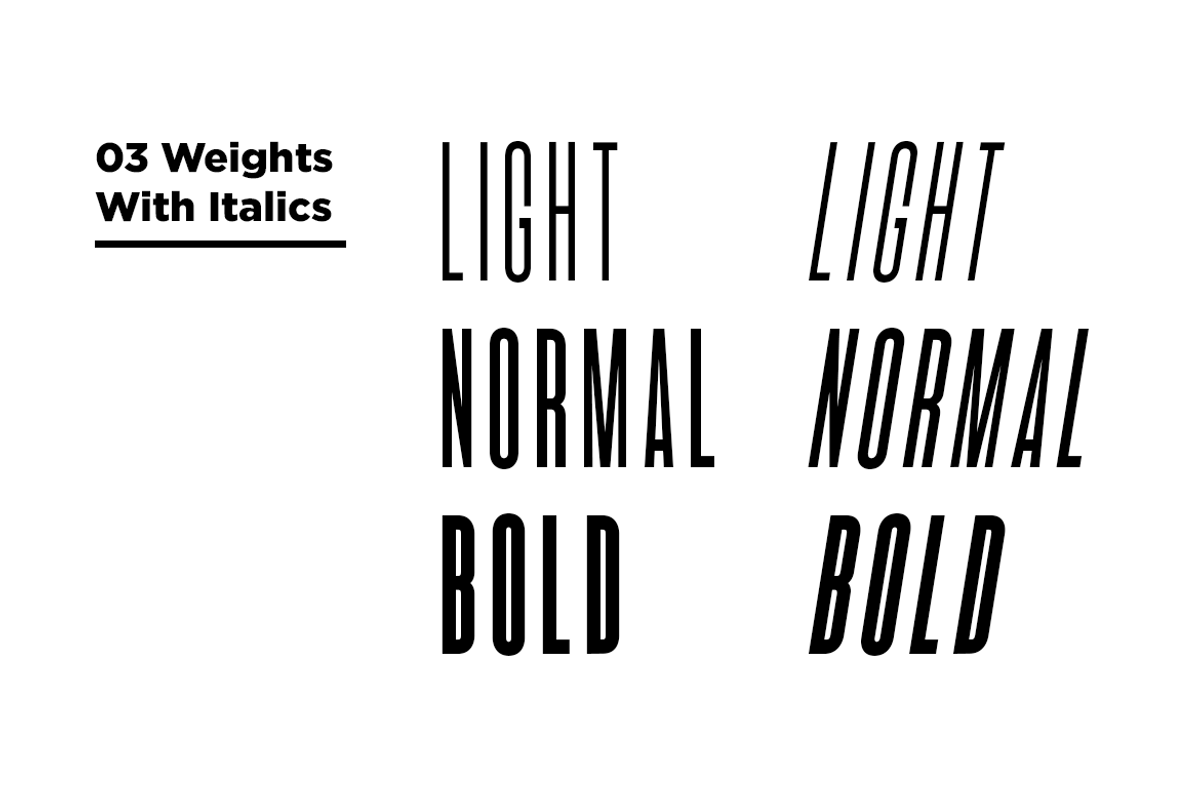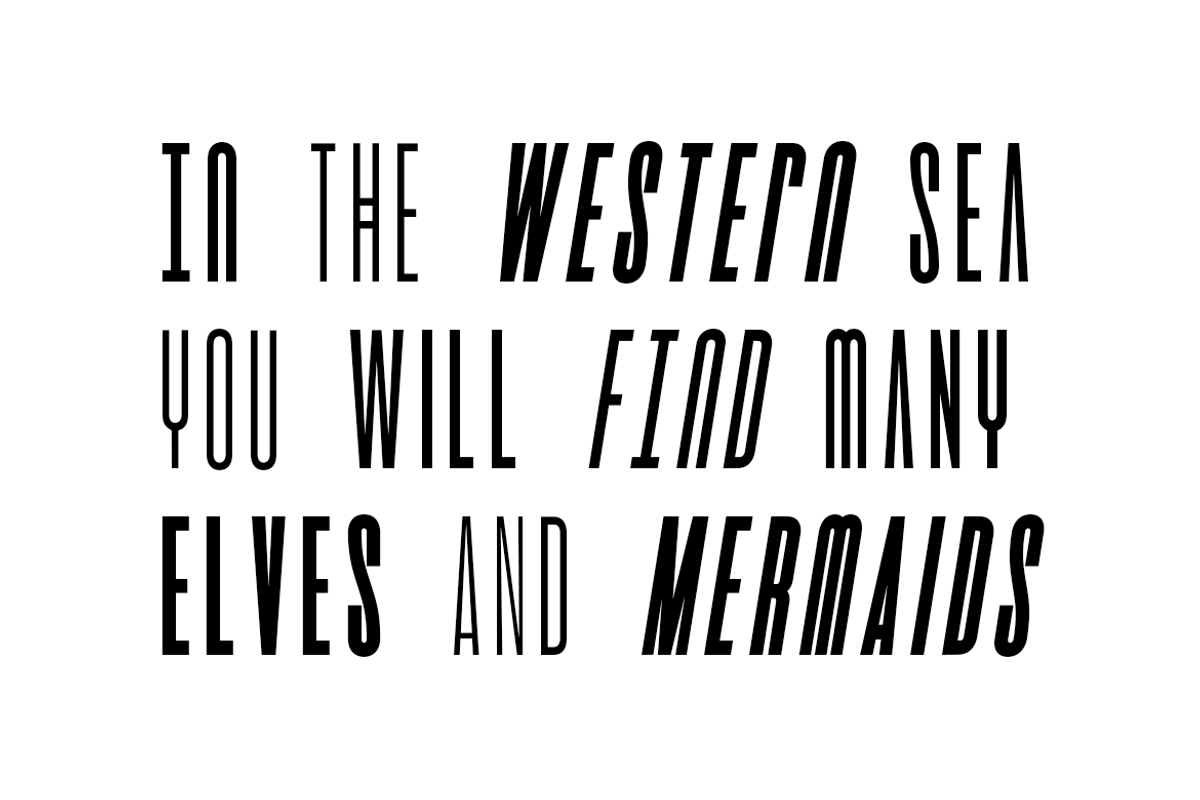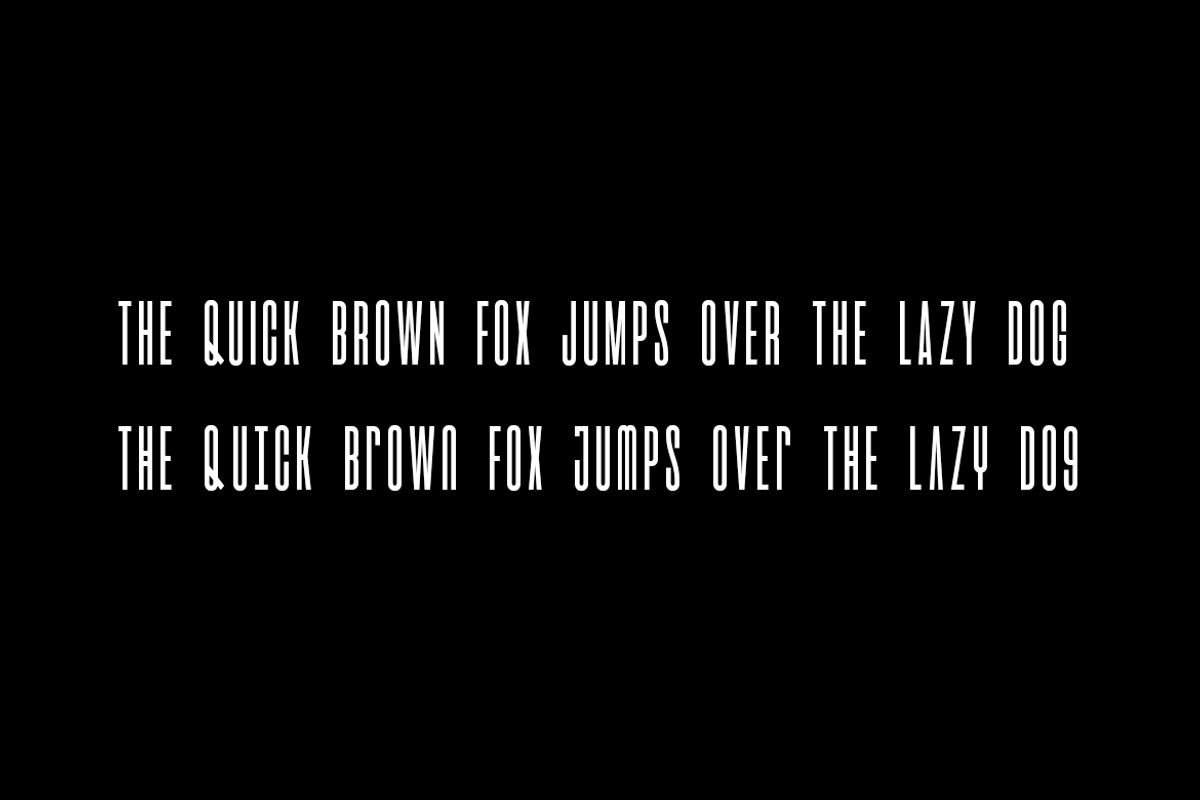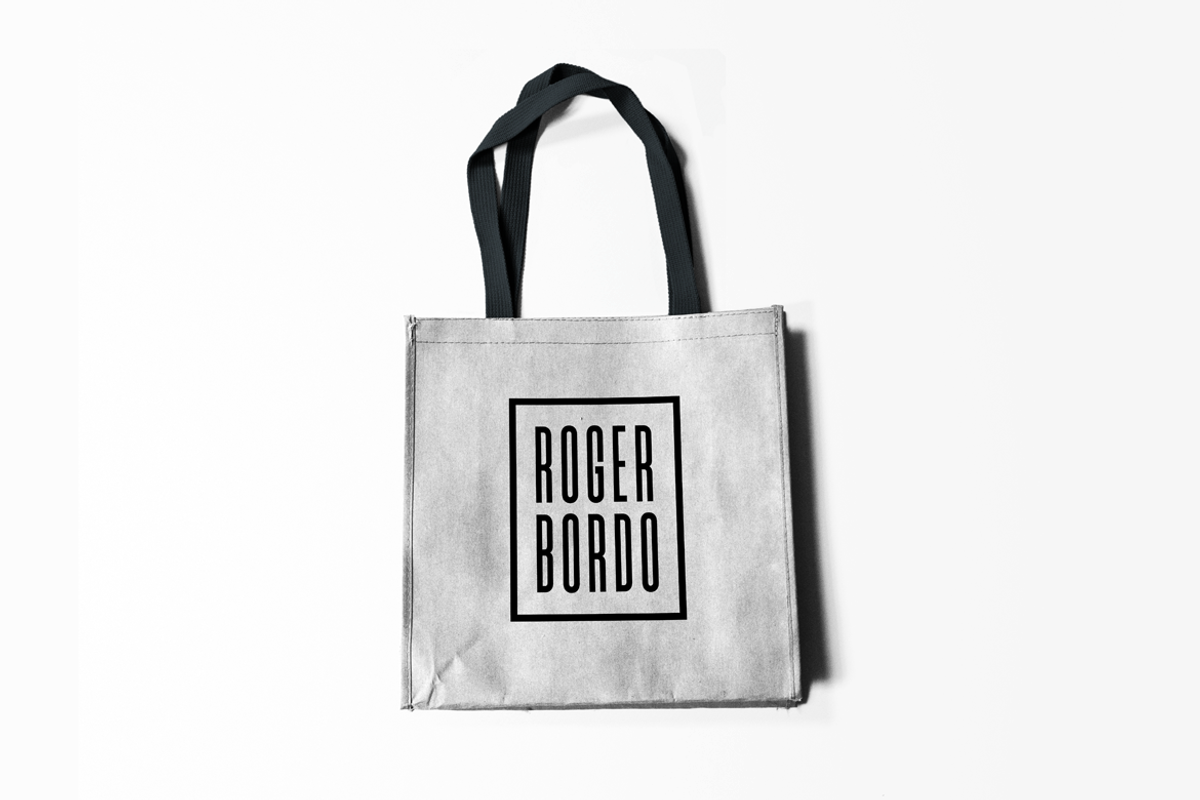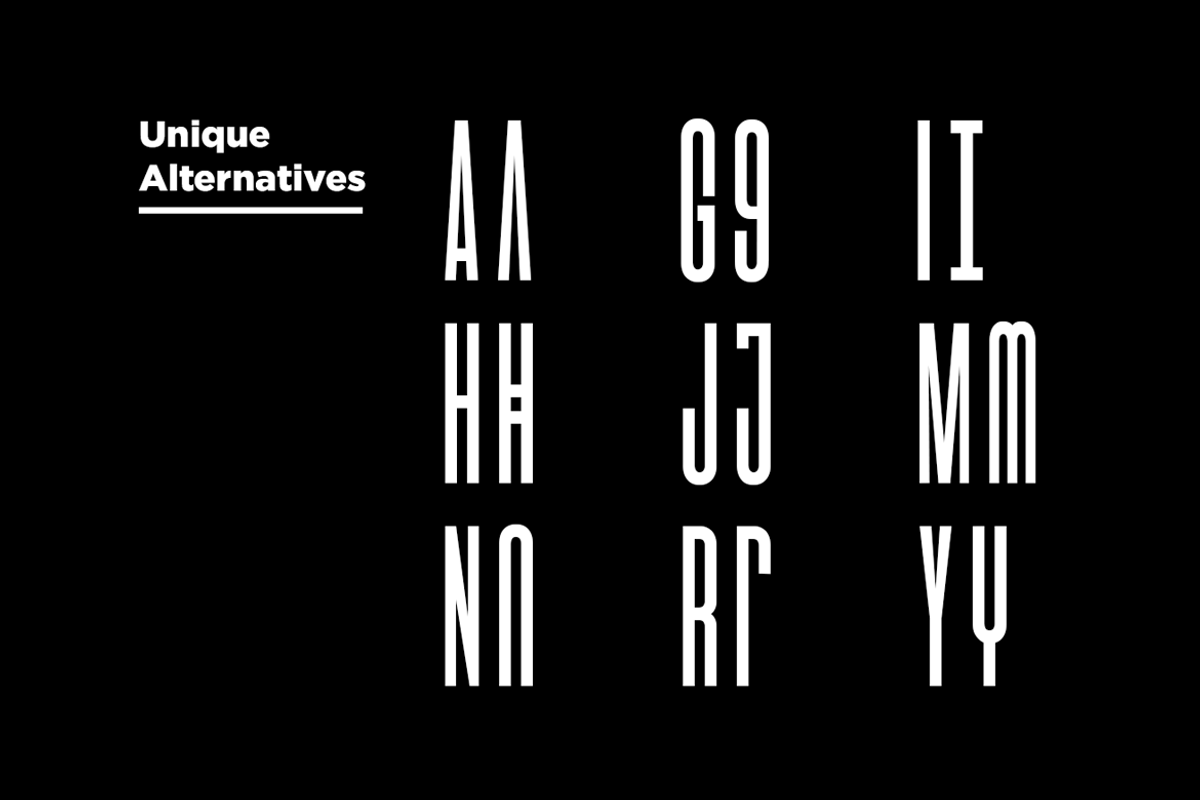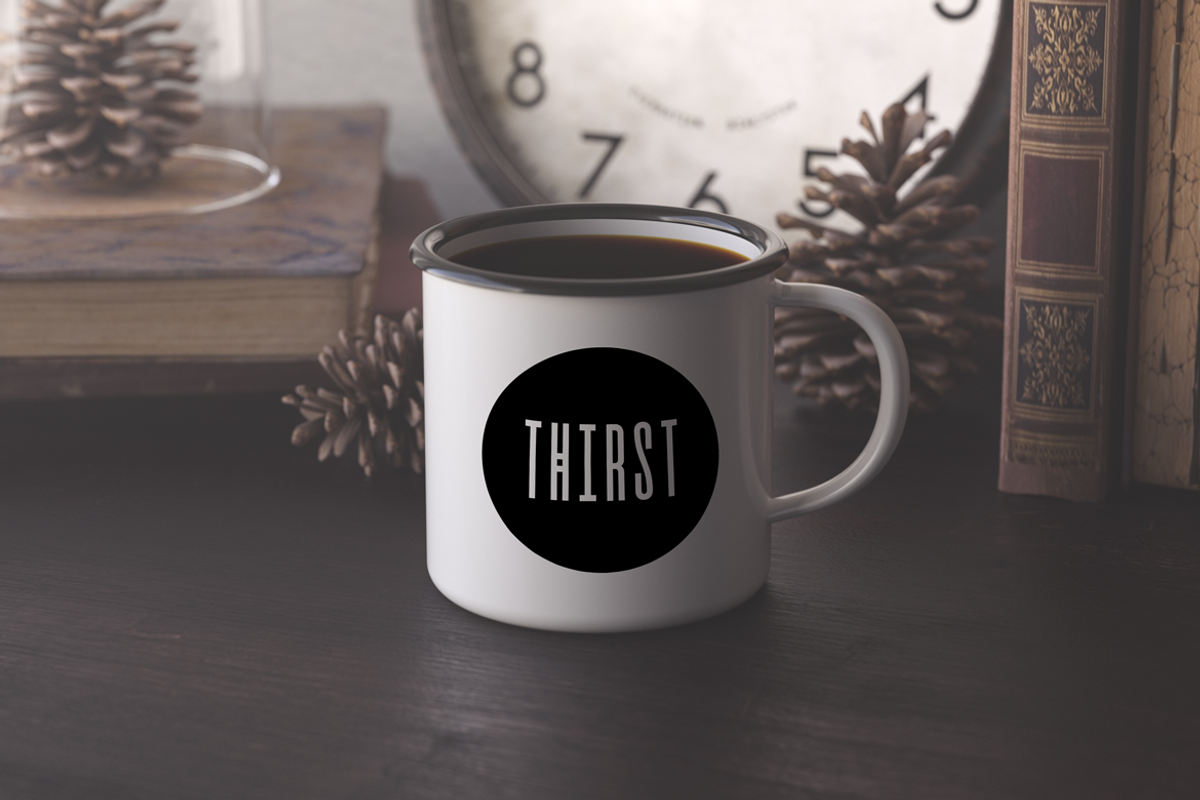
BISMARK - Display / Logo Typeface
BISMARK is a unique typeface for headlines, big text, branding, logotypes & display usage. This all-caps typeface (with some unique alternatives in lowercase option) is also perfect for creating great logos, promotional content and marketing graphics that lift the creative aspects of the design. Please see the examples shown above to get an idea about the capability of this typeface.
BISMARK comes with 3 weights (Light, Normal and Bold) and Italic versions of each weights. The pack contains Desktop Fonts (OTF, TTF) as well as Web Fonts (EOT, SVG, TTF, WOFF, WOFF2) as options.